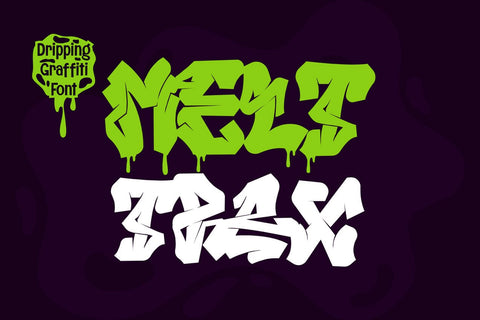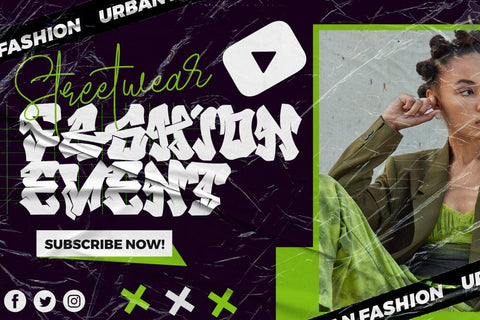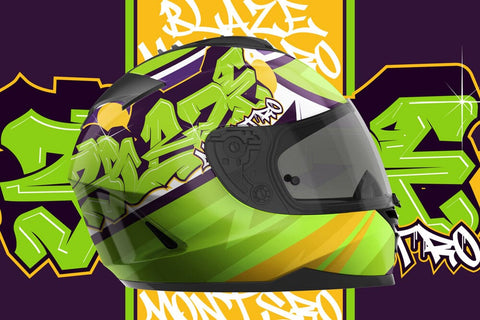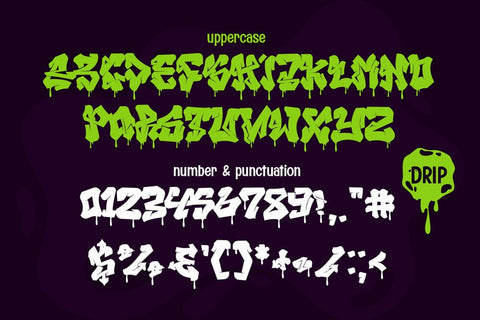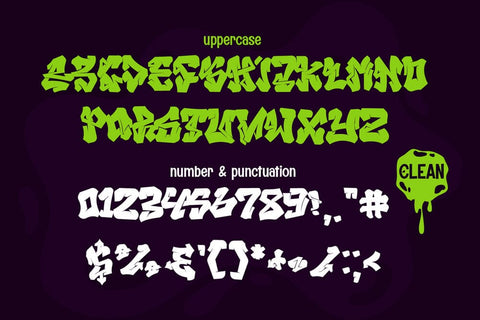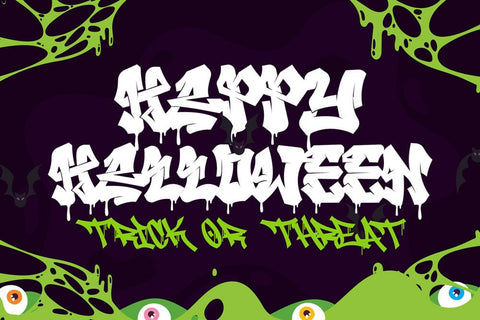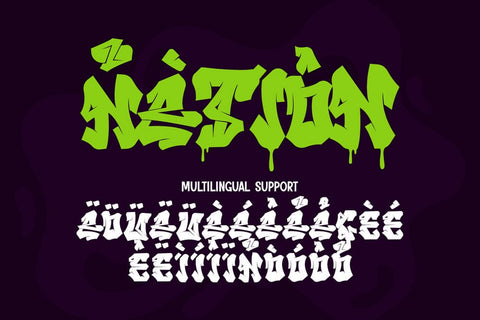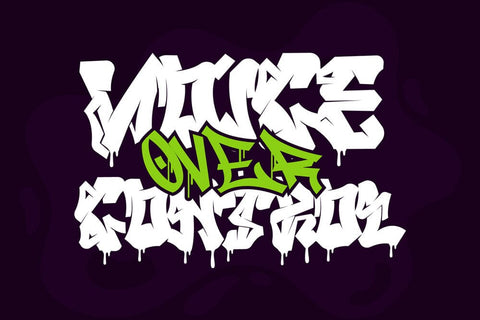
Melttrax – Urban Graffiti Font with Dripping Style | Halloween Font
Melttrax is a bold graffiti-style font featuring two powerful styles: Clean (Solid) and Dripping. Designed to bring an urban edge to your creative projects, this font is perfect for street art visuals, edgy posters, urban music graphics, and Halloween-themed designs.
Each letter bursts with energy and attitude, with sharp angles and a rebellious flow that echoes true graffiti expression. The dripping version adds a raw and eerie vibe — ideal for spooky projects, horror movie titles, or Halloween party flyers.
Use Melttrax to elevate your next urban, dark-themed, or Halloween design project.